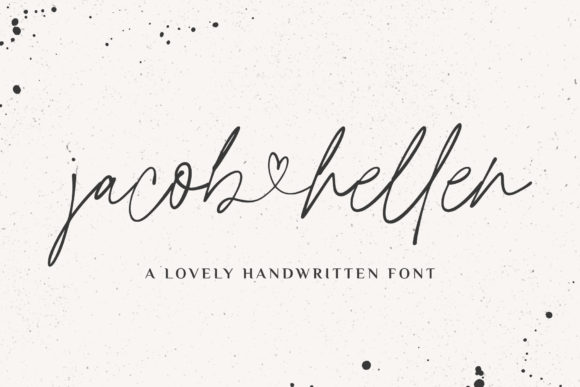
Presenting the delightful Jacob & Hellen Script Font, an enchanting creation from the talented jimtypestudio. This beautiful font family, crafted with meticulous care, offers a timeless charm that will elevate your designs to new heights.
Immerse yourself in the captivating elegance of Jacob & Hellen, a font that embodies the essence of romance and sophistication. Its graceful curves and delicate strokes dance across the page, evoking a sense of joy and wonder. Whether you're designing wedding invitations, elegant logos, or captivating branding materials, Jacob & Hellen will add a touch of magic to your creative vision.
With its PUA (Private Use Area) encoding, Jacob & Hellen unveils a world of creative possibilities. Access a treasure chest of glyphs and swashes with ease, allowing you to unleash your imagination and create designs that are both visually stunning and utterly unique. Let your creativity flourish as you explore the endless possibilities that Jacob & Hellen has to offer.
Jacob & Hellen is more than just a font; it's an invitation to step into a world of enchantment and inspiration. Its charming appearance will captivate your audience, leaving them spellbound by the beauty of your designs. From heartfelt wedding invitations to whimsical branding materials, Jacob & Hellen will transform your creative projects into works of art.
Embark on a journey of creativity with Jacob & Hellen, the font that will ignite your imagination and leave your audience breathless. Embrace the beauty of timeless elegance and create designs that are destined to leave a lasting impression. Let Jacob & Hellen be your muse as you weave tales of romance, joy, and enchantment through the power of typography.